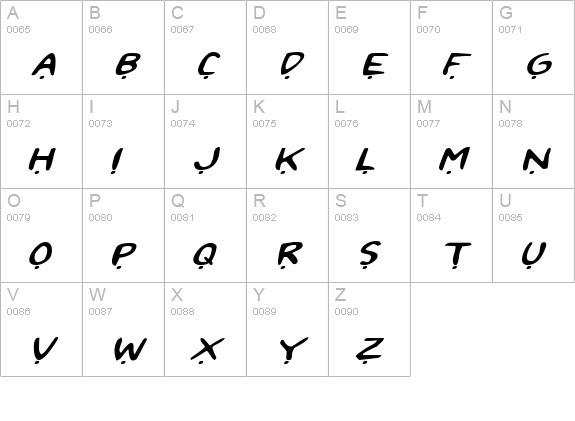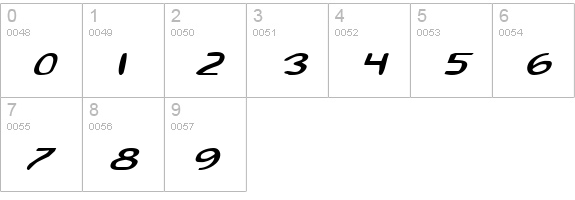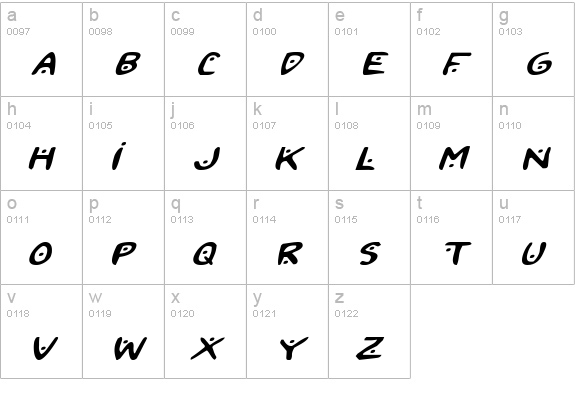
2Toon2 Expanded Italic Font Details
2Toon2 Expanded Italic is a distinctive, extended-width, italic variant in the 2Toon2 typeface family \xE2\x80\x94 well suited to design and typography projects.
Introducing 2Toon2 Expanded Italic font, a playful and whimsical typeface that is sure to add a touch of fun to your designs. This unique font features exaggerated letterforms with a slanted italic style, giving it a dynamic and energetic appearance. Perfect for projects that require a lighthearted and creative flair, 2Toon2 Expanded Italic font is versatile and eye-catching. What sets this font apart is not only its distinctive design, but also the fact that it is available for free download at FontsMarket.com. Yes, you read that right - you can freely access and use this font to enhance your projects without any cost. Whether you're designing posters, invitations, logos, or any other creative work, 2Toon2 Expanded Italic font is a great choice for adding a touch of personality and charm. So why wait? Head over to FontsMarket.com now to download 2Toon2 Expanded Italic font for free and start incorporating this delightful typeface into your designs today!